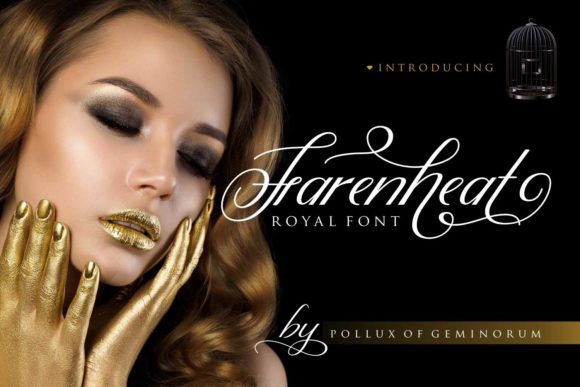
Introducing the Farenheat Font, a mesmerizing script family that will transform your designs into breathtaking works of art. Created by the renowned Pollux of Geminorum, this font is a true masterpiece, designed to evoke the grandeur of a royal court.
With Farenheat, your creations will exude an aura of exclusivity and luxury. Its graceful curves and elegant lines dance across the page, capturing the essence of sophistication and timeless beauty. Unleash the power of Farenheat and elevate your designs to new heights of opulence.
Whether you're crafting an unforgettable wedding invitation, designing a captivating logo, or creating eye-catching content, Farenheat is the perfect choice. Its versatility knows no bounds, allowing you to effortlessly express your creativity and make a lasting impression.
Indulge in the beauty of Farenheat and experience the transformative power it holds. Let its enchanting strokes inspire your designs and captivate your audience. Embrace the grandeur of this royal script and witness the magic it brings to your creative endeavors.